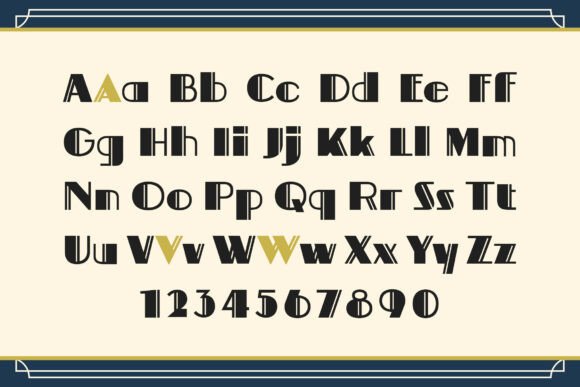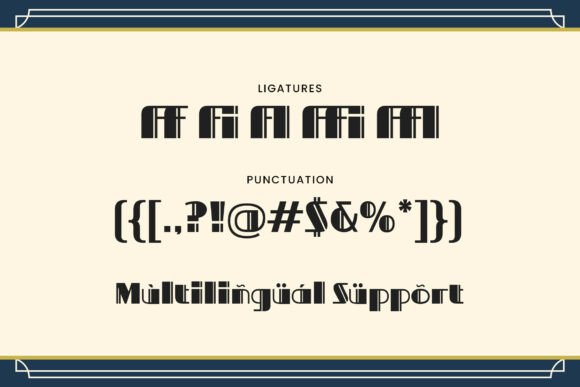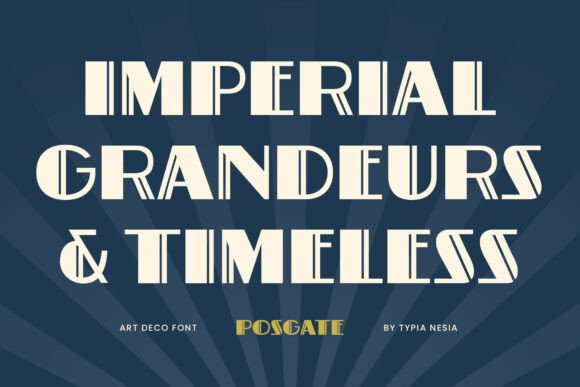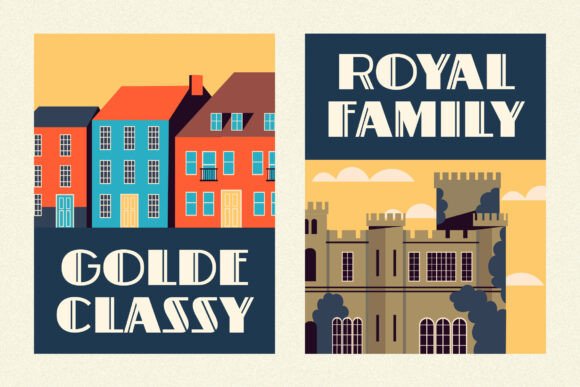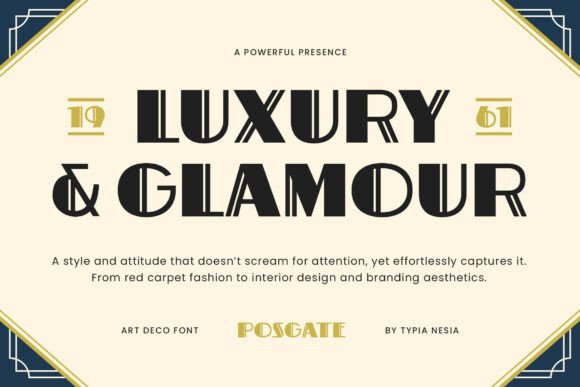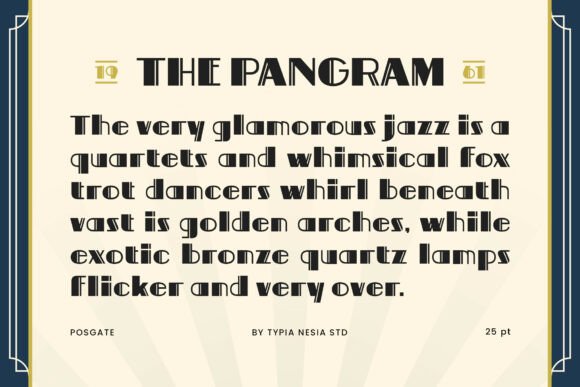
Introduction to Postgate Font
Have you ever found yourself browsing through old photographs of 1920s cities, mesmerized by the sleek skyscrapers and glamorous advertisements of the era? I’m sure many designers out there can relate to this feeling, and for those who can’t get enough of the Art Deco aesthetic, we’ve got exciting news! Introducing Postgate Font, a stunning display typeface that embodies the classic elegance of the 1920s with a modern twist.
As a valuable design resource, Postgate Font offers a unique blend of vintage charm and contemporary style, making it perfect for a wide range of creative projects, from powerful brand logos to high-end packaging designs and museum exhibitions. With its striking parallel lines and stylized characters, this typeface is sure to make your designs stand out and leave a lasting impression.
Key Features of Postgate Font
- Unique, hand-drawn design suitable for creative projects and artistic expression
- Available in 6 different font styles, each with its own unique characteristics and flair
- Suitable for use in a wide range of creative projects, from logos and branding to typography and packaging design
Honest Review: Postgate Font
I recently stumbled upon the Postgate Font and was excited to give it a try for my latest design project. As a designer, I’m always on the lookout for high-quality fonts that can add a unique touch to my work.
One thing that immediately stood out to me was the transparent background, which allowed for seamless integration with my design. The font itself is quite versatile and can be used for a wide range of creative projects, from editorial content to branding materials.
- High-quality design with a unique touch
- Only available in a limited number of font styles
- May not be suitable for complex typography or large-scale projects
Overall, I was impressed with the Postgate Font and would definitely consider using it for future projects. Its unique design and high-quality feel make it a valuable addition to any designer’s toolkit.